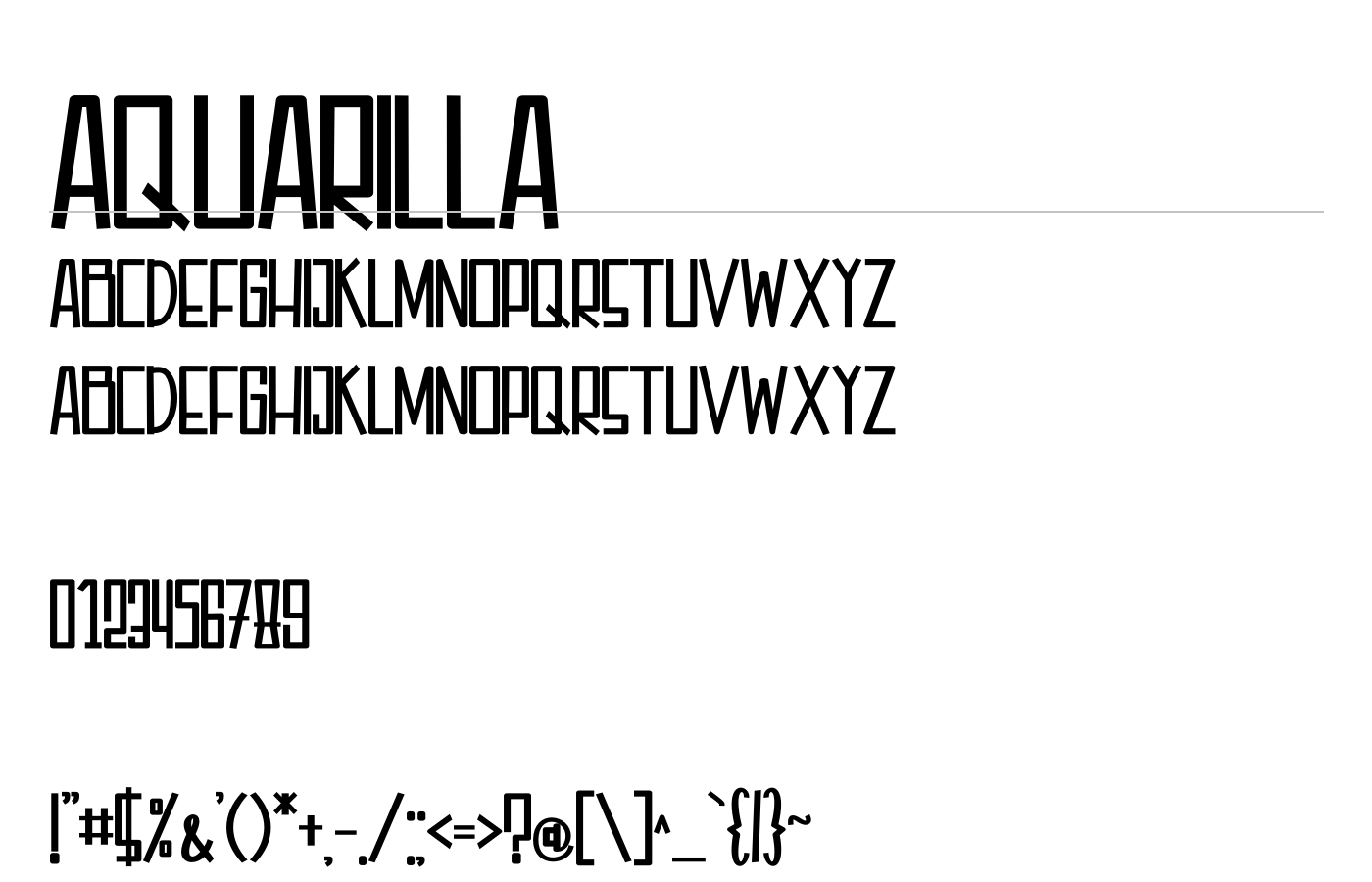
Aquarilla is a narrow, modern sans serif font with a condensed structure and uniform, medium-weight strokes that give it a sleek and geometric appearance. Its uppercase design features sharp, clean lines and distinct angular details, creating a futuristic and technical personality well suited for contemporary branding, headlines, and digital displays. This font works best in high-impact visuals where space is limited but strong readability and a modern edge are desired.
Aquarilla Font
About Aquarilla Font
| Font family | Aquarilla Font |
| Designer | Arief Tri Sulistiyono |
| Trademark | Supersemar Letter |